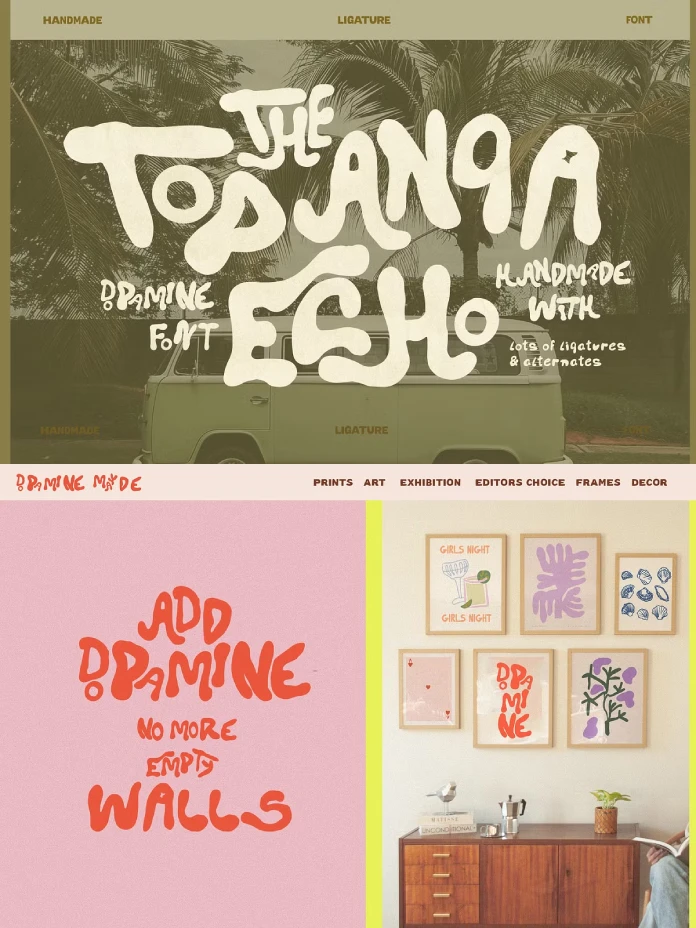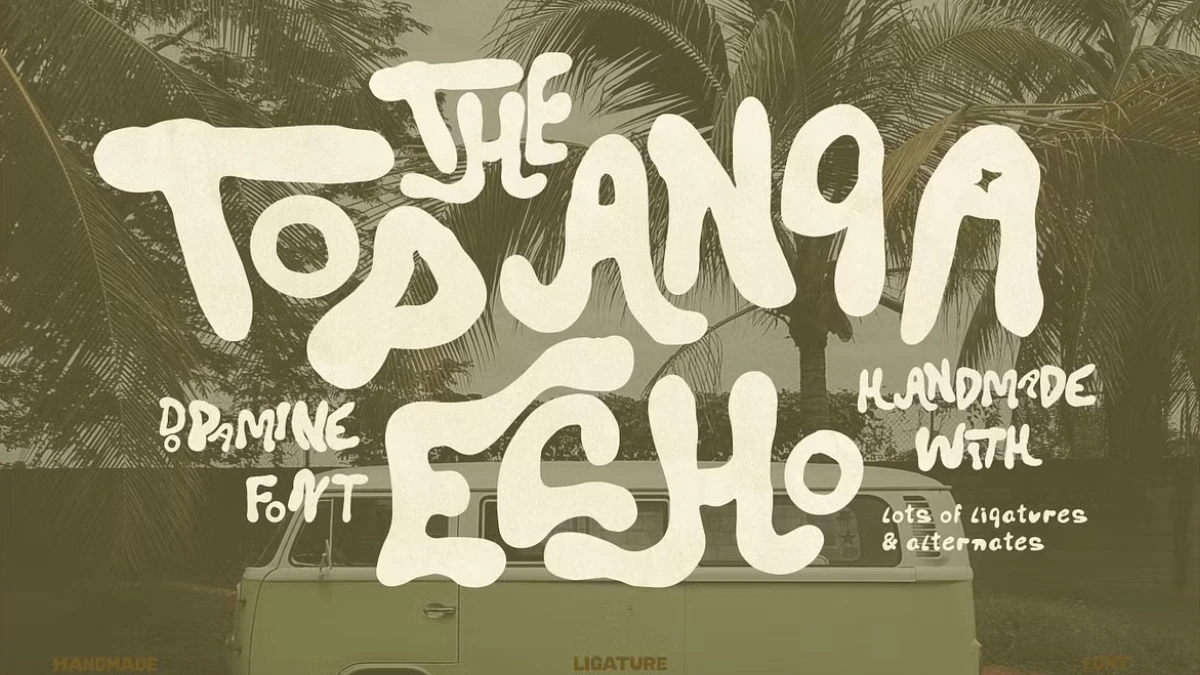
With the Topanga Echo Font, You Can Channel Californian Sun Into Authentic Designs
In a digital landscape often dominated by clean lines and minimalist precision, a tangible shift is underway. Designers and brands are increasingly seeking warmth, personality, and a touch of nostalgic joy. Consequently, this movement has found its perfect expression in the “dopamine decor” trend, an aesthetic built on vibrant colors and feel-good nostalgia. It is within this timely context that the Topanga Echo typeface by Laras Wonderland emerges. It serves not just as a font, but as a creative tool perfectly attuned to this desire for happiness in design. Therefore, this typeface offers a direct route to crafting visuals that feel personal, spirited, and unapologetically human.
The Topanga Echo font is more than just a set of characters; it’s an ode to a specific time and place. It expertly channels the groovy, sun-bleached energy of 1960s and 70s California. Imagine vintage record sleeves, canyon air, and the laid-back charm of the Pacific coast—these are the inspirations baked into its DNA. For any creative looking to infuse their work with a retro flair that feels both trendy and timeless, understanding this typeface is essential. It magically transforms designs into something that appears hand-lettered in seconds.
Deconstructing the Vibe: What is the Topanga Echo Typeface?
At its core, the Topanga Echo typeface is a bold, distorted display font. Its characters skillfully mimic the imperfect, fluid strokes of authentic handwriting. In fact, this intentional lack of uniformity is its greatest strength. The design features soft curves and a heavy weight, giving it a friendly yet confident personality. Furthermore, it avoids sharp, sterile edges, opting instead for a groovy, relaxed structure that feels organic and alive.
This font was specifically crafted to bring a hand-lettered feel to digital designs instantaneously. Its design is heavily influenced by the expressive typography of the 70s, a period known for its bold and playful lettering styles. As a result, the typeface feels both artistic and effortlessly cool. This quality makes it a powerful choice for designers aiming to create a strong and memorable visual identity.
Why the Topanga Echo Font is the Perfect Fit for Modern Design
The relevance of the Topanga Echo font goes far beyond its retro aesthetic. Indeed, it taps directly into significant contemporary design trends that prioritize emotion and individuality over corporate sterility.
Capturing the Essence of Dopamine Decor
The “dopamine decor” trend is about filling spaces with elements that spark joy. It represents a deliberate move away from monochrome minimalism toward layered colors and engaging textures. Topanga Echo is the typographic equivalent of this movement. Its playful charm and feel-good retro flair directly inject this sense of happiness into visual designs. Therefore, using this font helps create an immediate emotional connection. It makes branding and posters feel more like personal expressions of joy. How can a typeface transform a simple message into a mood-boosting experience?
The Growing Appeal of Authentic, Human-Centric Design
Audiences are growing tired of overly polished, algorithm-driven visuals. There is a palpable demand for content that feels real and relatable. The distorted, handwritten nature of the Topanga Echo typeface offers a powerful antidote to digital perfectionism. Its slight irregularities and unique character shapes suggest a human touch, creating a sense of authenticity that resonates deeply. In short, this font tells a story of creativity and imperfection, making it ideal for brands that want to appear more grounded and personable.
A Practical Guide: Unlocking the Magic of the Topanga Echo Font
To fully leverage the power of the Topanga Echo font, one must understand its most compelling feature: its extensive use of ligatures. This is how the typeface achieves its remarkably custom, hand-lettered appearance with such ease.
Mastering the Art of Ligatures
What exactly are ligatures? In typography, ligatures are special glyphs that combine two or more letters into a single, harmonious character. For instance, the letters ‘f’ and ‘i’ might be combined to create a smoother look. In a stylistic font like Topanga Echo, however, ligatures are used far more creatively. They introduce quirky, unique connections between letters that mimic the natural variations of handwriting.
The Topanga Echo typeface includes a vast library of these discretionary ligatures and alternates within its .OTF file. To access them, you need to use OpenType-savvy design software.
- In Adobe Illustrator, you can access these features through the OpenType panel. From there, you can enable options like Discretionary Ligatures to see the font transform.
- In Adobe Photoshop, these options are available in the Character panel. Toggling the ligature options will activate the font’s unique character combinations.
- In Figma, simply open the “Type Settings” palette to find and enable various OpenType features.
Experimenting with these settings is key to unlocking the font’s full potential. You can instantly turn a standard line of text into what looks like a custom-drawn piece of lettering.
Ultimately, the Topanga Echo typeface by Laras Wonderland is more than a font. It is a design tool that captures a cultural moment—a collective desire for more joy and human connection in our visual world. By embracing its retro charm and mastering its powerful features, you can create designs that are not only seen but also truly felt.